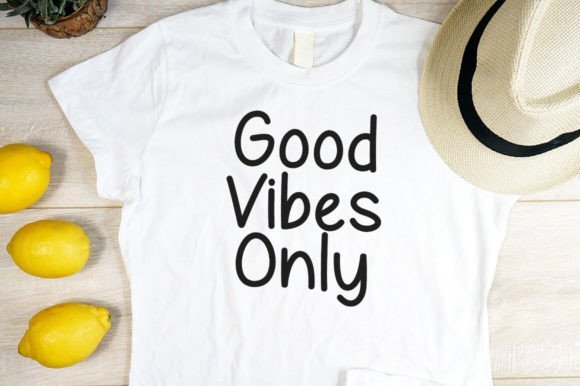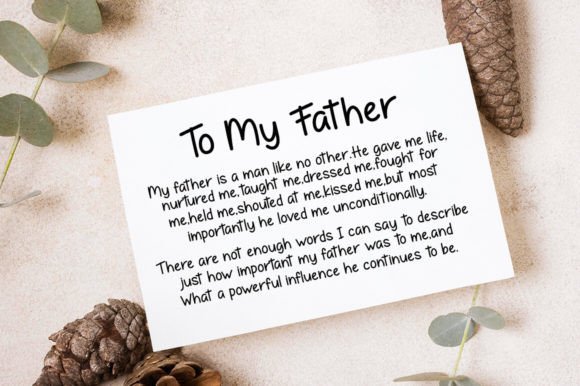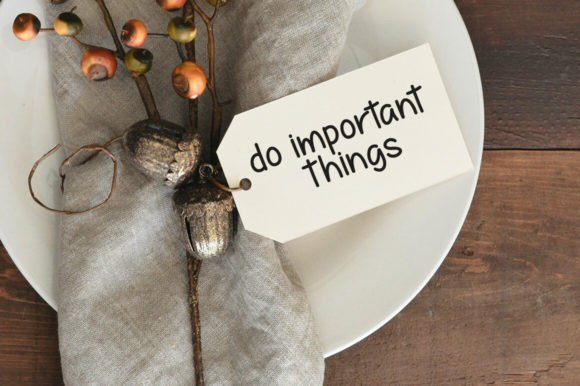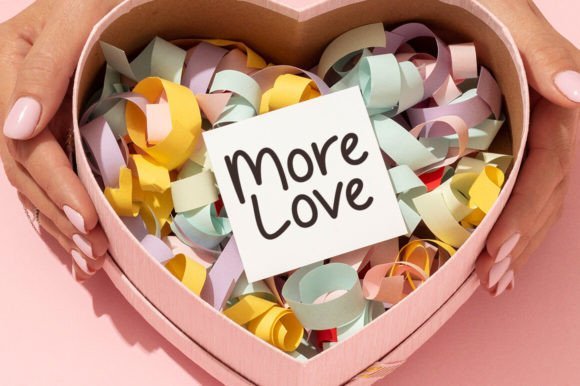
Introducing History Beauty font is a handwriting font with a sweet look and flourishing character. History Beauty can be used for various types of design needs such as branding materials, social media, quotes, invitation, businnes cards, movie coverand more.